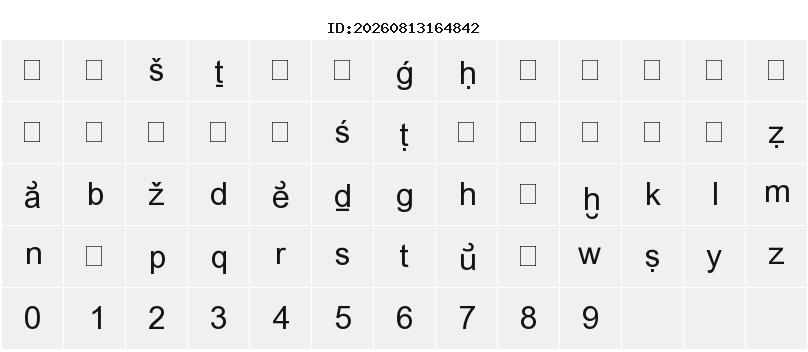
About RK Ugaritic Transscript.ttf
RK Ugaritic Transscript.ttf is a modern, elegant sans-serif font designed for ultimate readability and visual harmony. Perfect for branding, headlines, web design, and print materials.